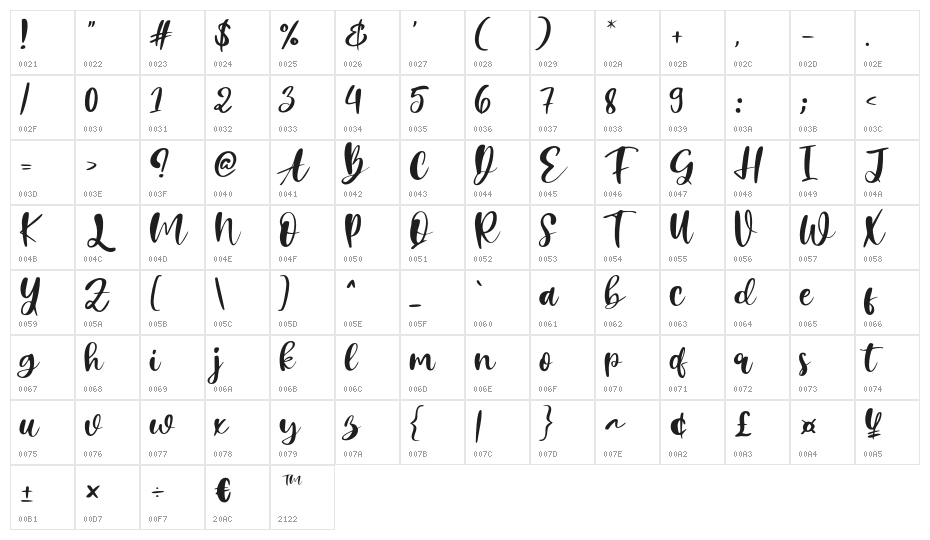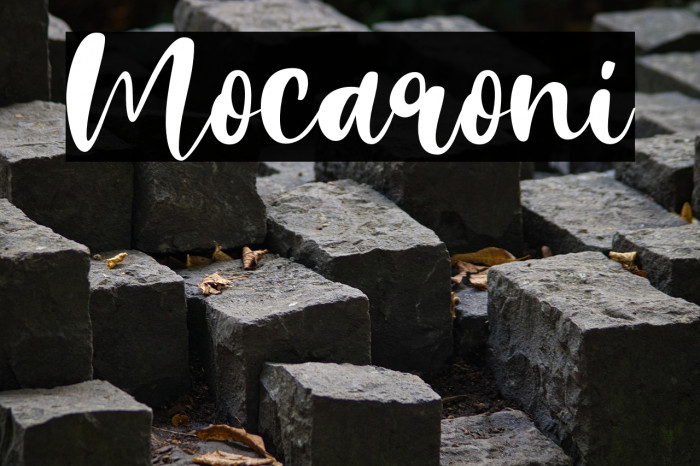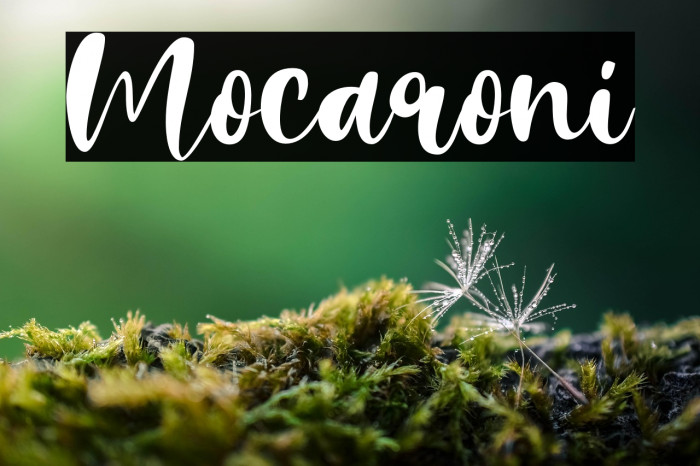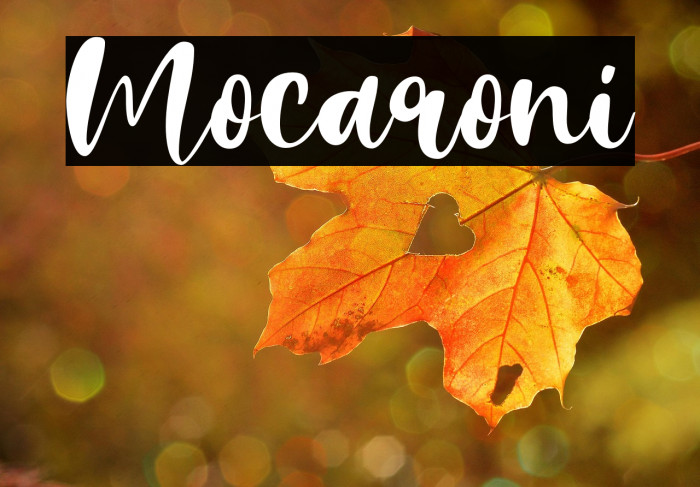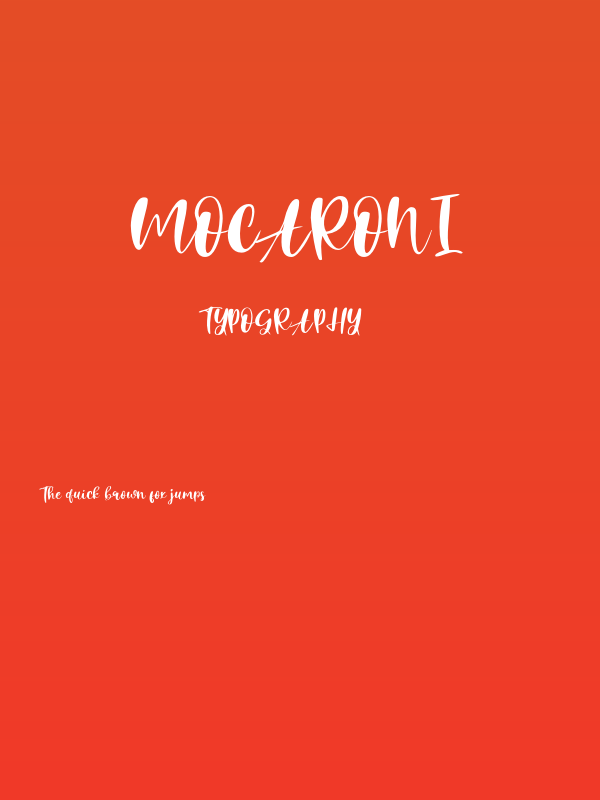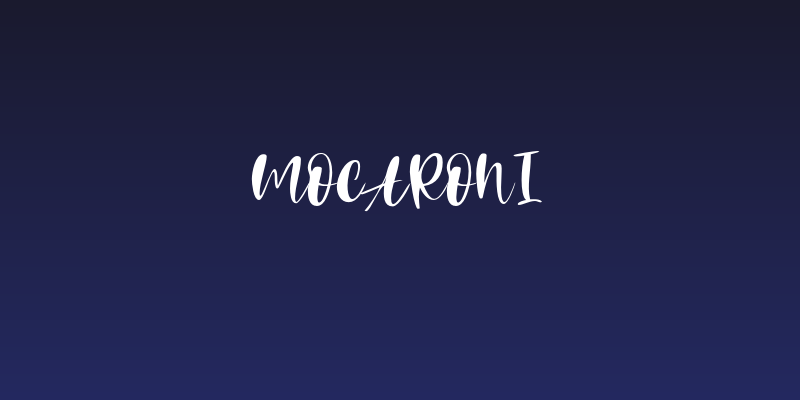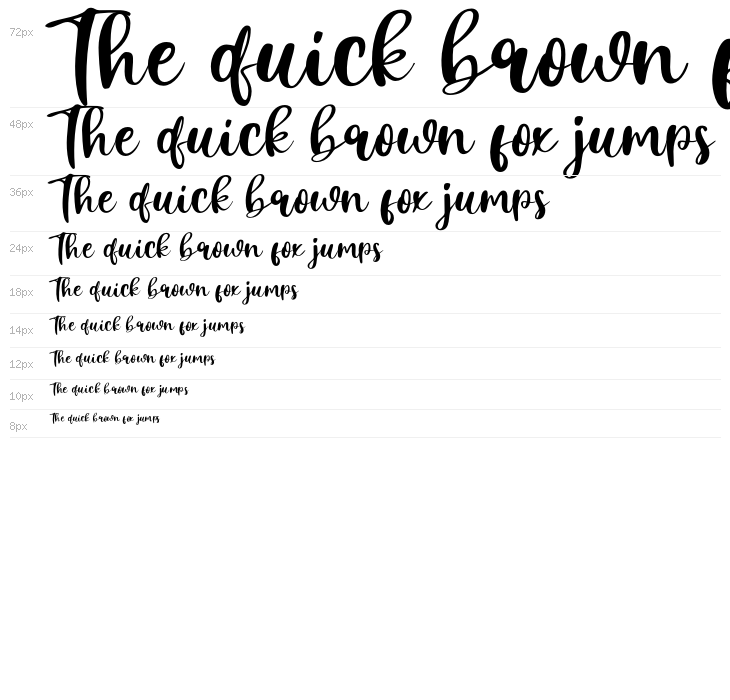
Mocaroni Font
Mocaroni Description
This font exudes a lively and expressive character, featuring bold, flowing strokes that mimic the fluidity of handwriting. The uppercase letters are elegantly crafted with a slight slant, while the lowercase letters maintain a consistent rhythm, enhancing readability. Numbers and special characters are equally dynamic, adding a playful touch to the overall design. The font's high contrast between thick and thin strokes adds to its visual appeal, making it suitable for eye-catching designs.
| Proposed Projects | Ideal for invitations, greeting cards, branding projects, and social media graphics where a personal touch is desired. |